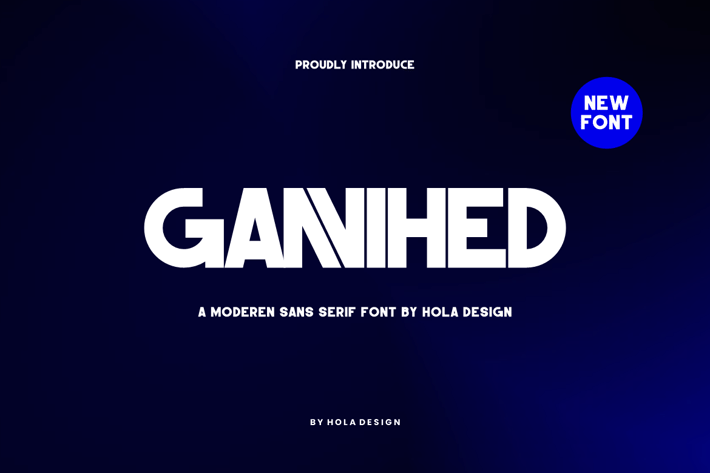
Gannihed - Modern Sans Serif Font
Gannihed - Modern Sans Serif Font Font is unique . Ready to use for your design like labeling, movie sceen, poster, movie title, gigs, album covers, logos, and much more.